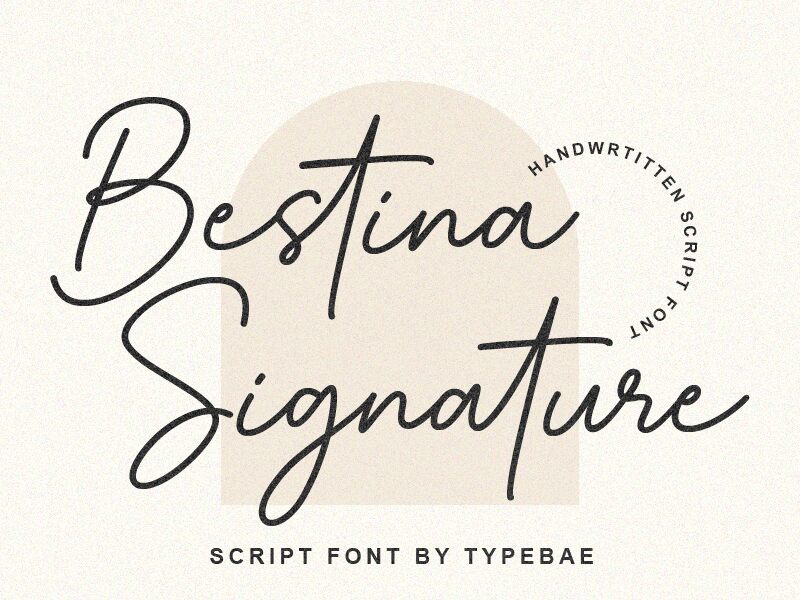
Bestina Signature
Bestina Signature font by Typebae Foundry embodies a graceful handwritten style, exuding elegance and personal touch. This light font flows with the fluidity of a natural signature, making it ideal for bringing sophistication to any project. Its curvaceous lines and delicate weight make it exceptionally appealing for creating logos, branding materials, wedding invitations, or stylish personal notes.